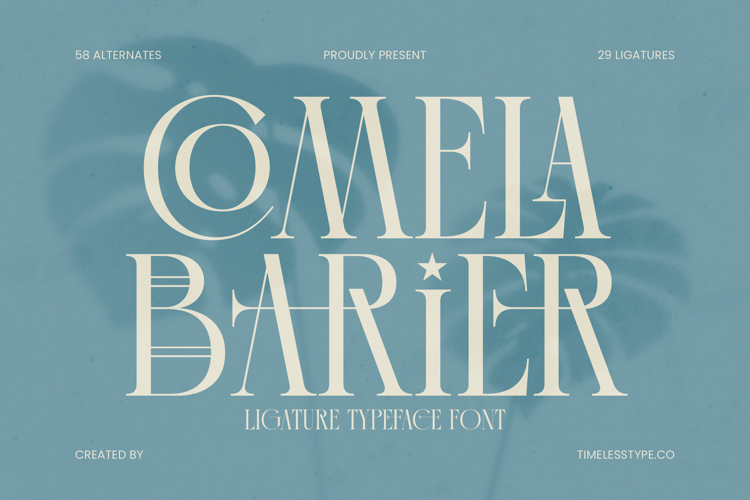
Comela Barier - Ligature Typeface Font
Elevate your designs with unparalleled sophistication. Introducing Comela Barier - Ligature Typeface Font, a striking serif typeface that masterfully blends classical elegance with a contemporary edge. Its high-contrast letterforms and refined curves exude a sense of premium quality and artistry. This font is meticulously crafted to command attention, making every word a statement of luxury and distinction within any creative project.
Unlock boundless creative possibilities for your brand. Comela Barier - Ligature Typeface Font is not just a font; it's a comprehensive design toolkit. Featuring an impressive 58 alternates and 29 ligatures, it offers extraordinary flexibility to personalize your typography. Experiment with unique character variations and seamlessly flowing connections to create truly bespoke designs that resonate with elegance and individuality, perfect for memorable visual identities.
Expand your brand's presence across diverse cultures. With its extensive multilingual support, Comela Barier - Ligature Typeface Font adapts seamlessly across global markets, making it incredibly versatile for international projects. This ensures your message maintains its intended impact and aesthetic integrity, regardless of language. Embrace a typeface designed for global reach and universal appeal, enhancing your worldwide communications with grace and clarity.